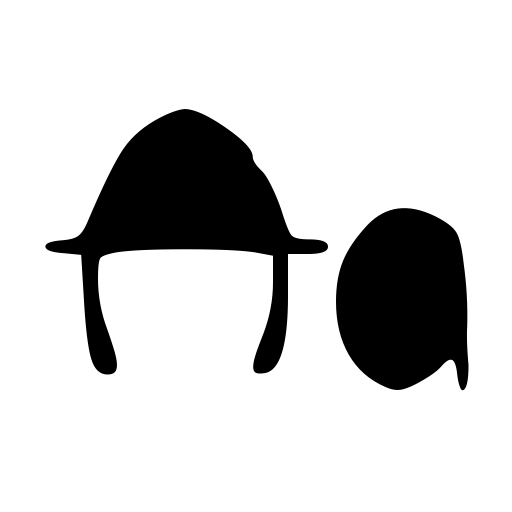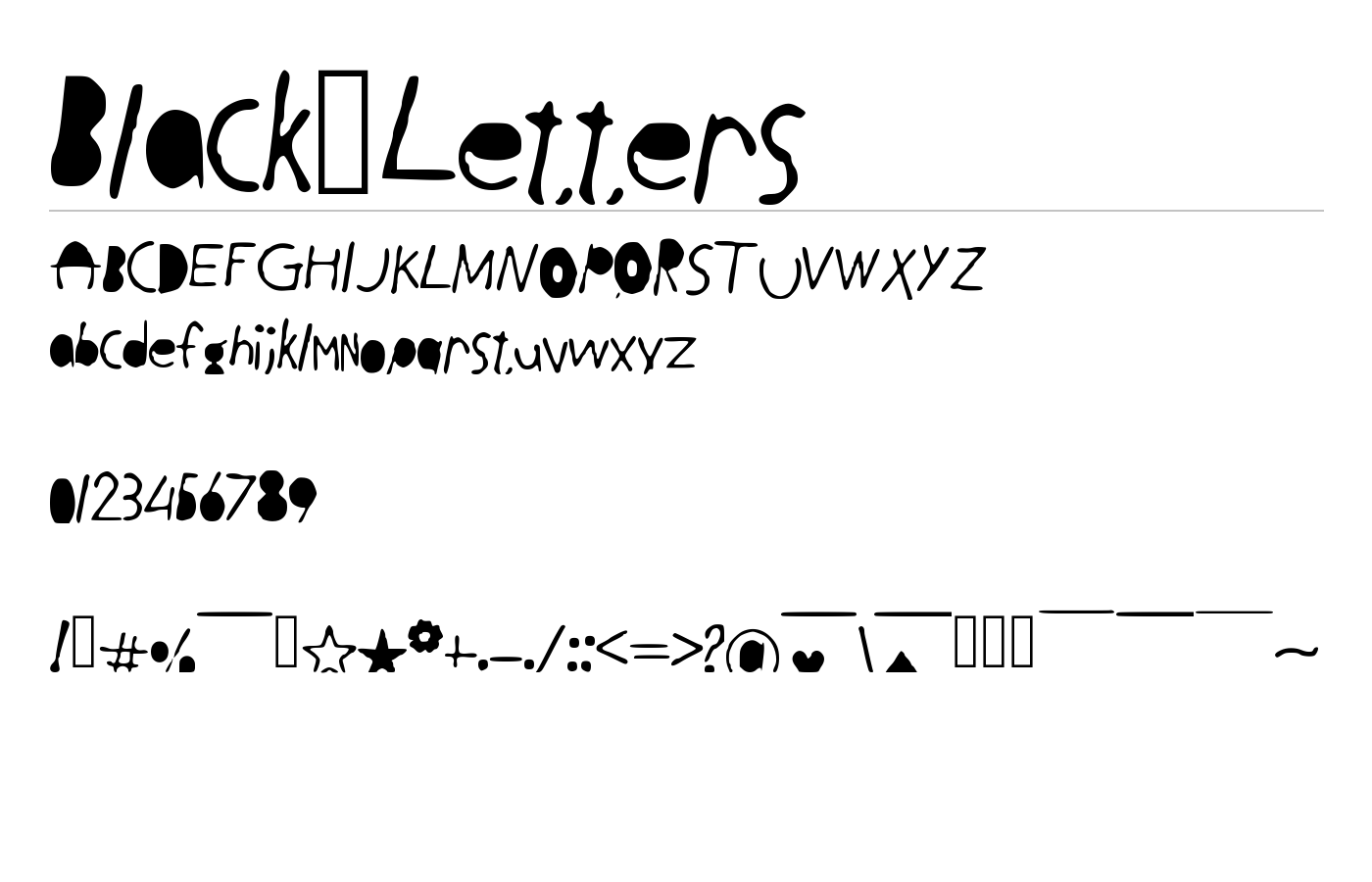
Black Letters Font is a bold, playful handwritten typeface with irregular, quirky shapes that create a lively and artistic feel. Its uneven stroke weight and unique letterforms give it a creative and casual personality, making it ideal for expressive and informal designs such as posters, children's books, or creative branding. This font captures attention with its distinct, handcrafted style, perfect for projects needing a fun and unconventional look.
Black_Letters Font
About Black_Letters Font